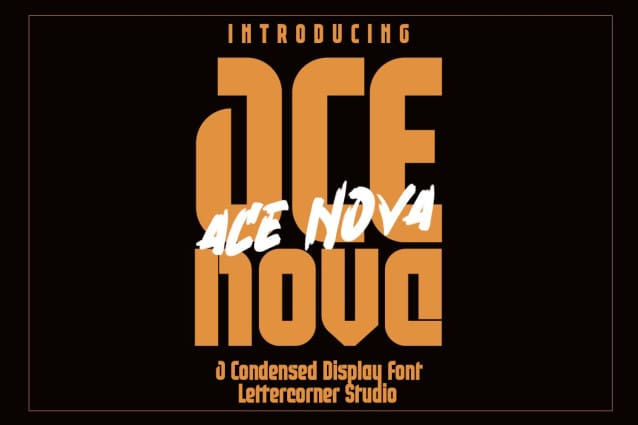
Ace Nova Font Duo
Ace Nova Font Duo, Perfectly fit for branding, logo, wedding things, greeting cards, fashion, lookbook, marketing promotion, anytime you want to look fancy elegant but still casual.